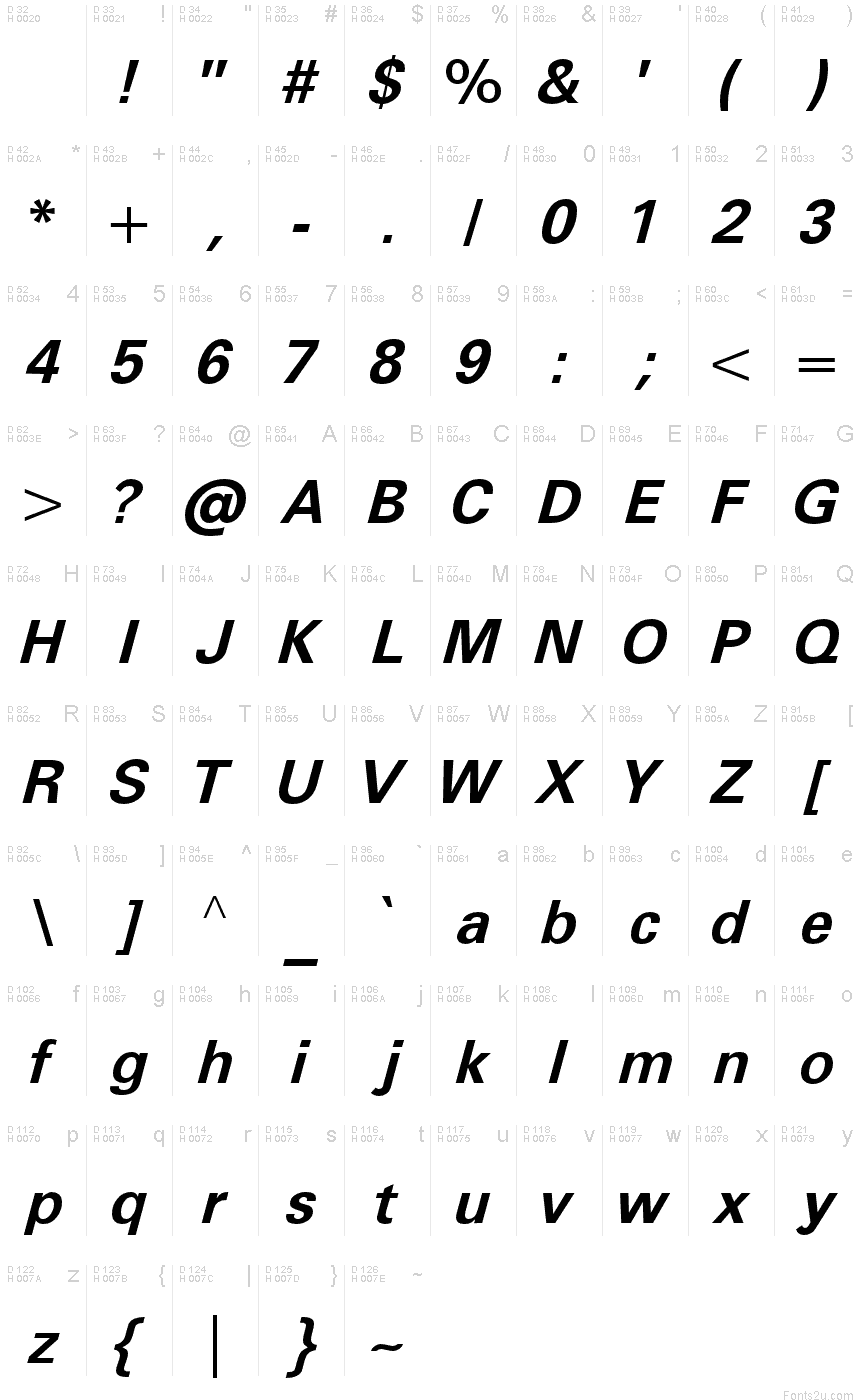
Sophia Nubian Bold Italic by Walt Agee, Victor Gaultney, and Lorna Priest of SIL International is a free bold italic sans serif with a forceful forward lean. Broad capitals and deep curves give the lettering substantial weight. Stroke widths shift noticeably, sharpening the joins and keeping the silhouette active.
Sports branding is its strongest use, particularly for team logos and event posters that benefit from speed and impact. It also fits album covers and streetwear graphics, where the sweeping diagonals can echo action photography, racing stripes, or other directional artwork.
Sophia Nubian
Bold Italic
Walt Agee, Victor Gaultney, Lorna Priest